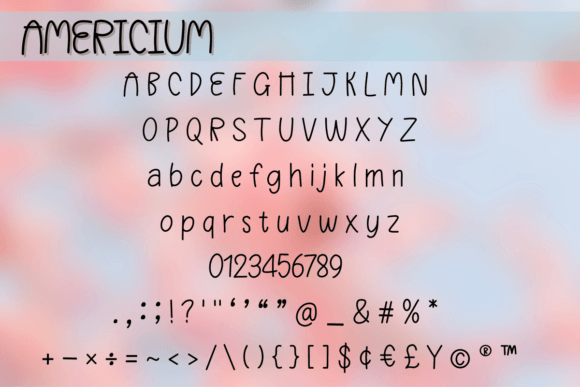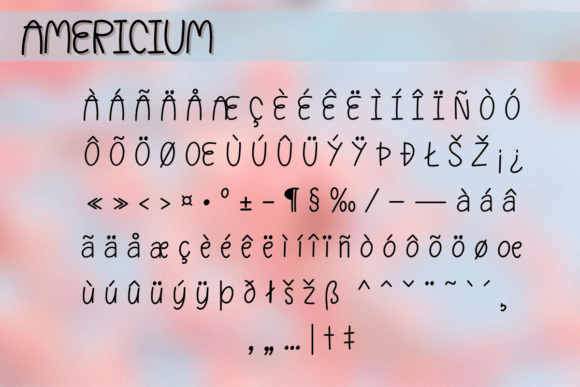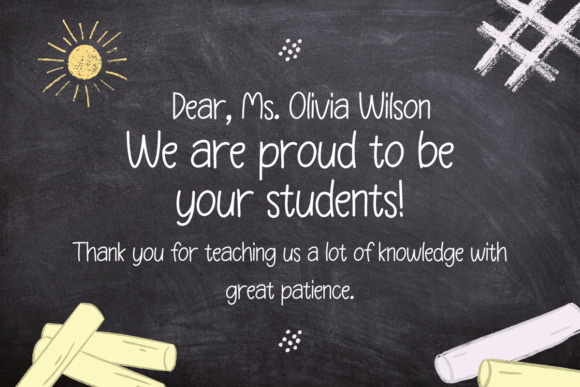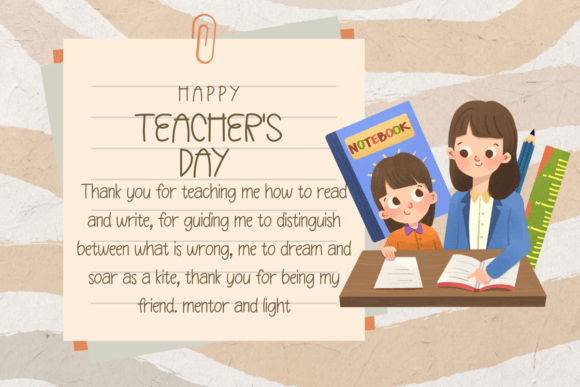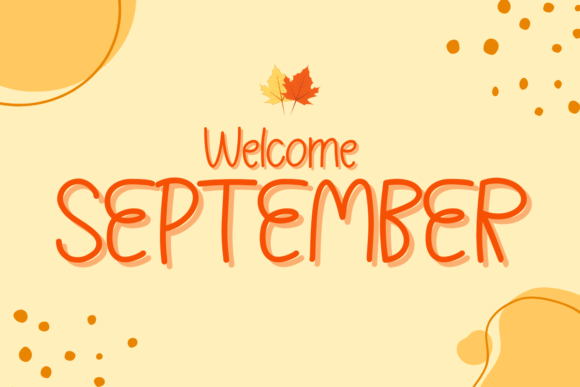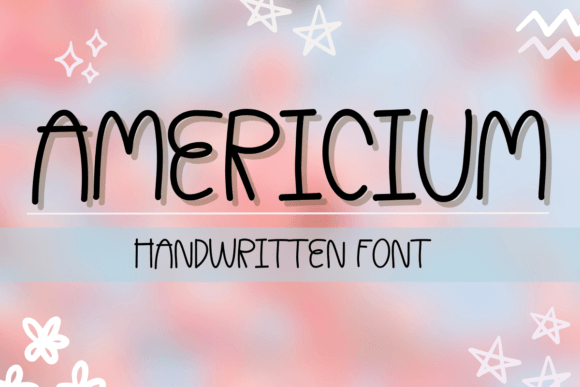
Introducing Americium Font: The Perfect Handwritten Style for Your Creative Projects
Are you a designer, crafter, or DIY enthusiast looking for a unique and versatile font to add a personal touch to your creations? Look no further than Americium Font, a beautiful handwritten font that’s perfect for a wide range of projects. In this article, we’ll explore the features and benefits of Americium Font, and show you how to make the most of this amazing resource.
What is Americium Font?
Americium Font is a carefully crafted handwritten font that’s designed to bring a touch of warmth and personality to your designs. With its flowing lines and natural feel, this font is perfect for creating handwritten-style text that’s both elegant and approachable. Whether you’re looking to add a personal touch to your notes, diaries, or greeting cards, Americium Font is the perfect choice.
What Can I Use Americium Font For?
Americium Font is incredibly versatile, and can be used for a wide range of creative projects. Here are just a few ideas to get you started:
- Notes and Journals: Use Americium Font to add a personal touch to your notes and journals. Whether you’re a student, a writer, or simply someone who loves to jot down ideas, this font is perfect for creating handwritten-style text that’s easy to read and beautiful to look at.
- Greeting Cards: Create beautiful, one-of-a-kind greeting cards for special occasions like birthdays, holidays, and weddings. Americium Font is perfect for adding a personal touch to your cards, and can be used to create everything from simple, heartfelt messages to more elaborate designs.
- Banners and Signs: Use Americium Font to create eye-catching banners and signs for parties, events, and other special occasions. This font is perfect for creating bold, eye-catching text that’s sure to grab attention.
- Social Media Posts: Add a personal touch to your social media posts with Americium Font. Whether you’re looking to create engaging captions, quotes, or simply want to add a decorative touch to your posts, this font is perfect for creating unique and eye-catching text.
- Mugs, Cards, and Shirts: Americium Font is also perfect for creating custom designs for mugs, cards, shirts, and other merchandise. Whether you’re looking to create a unique gift or simply want to add a personal touch to your own belongings, this font is the perfect choice.
Why Choose Americium Font?
So why choose Americium Font over other fonts? Here are just a few reasons why this font stands out:
- Unique and Handwritten: Americium Font is a truly unique and handwritten font that’s sure to add a personal touch to your designs. With its natural feel and flowing lines, this font is perfect for creating text that’s both elegant and approachable.
- Versatile: Americium Font is incredibly versatile, and can be used for a wide range of creative projects. Whether you’re looking to create notes, greeting cards, banners, or social media posts, this font is perfect for any project that requires a personal touch.
- Easy to Read: Despite its handwritten style, Americium Font is incredibly easy to read. This makes it perfect for creating text that’s both beautiful and functional.
Tips for Using Americium Font
Here are a few tips for getting the most out of Americium Font:
- Experiment with Sizes and Colors: Americium Font looks great in a variety of sizes and colors. Experiment with different combinations to find the one that works best for your project.
- Pair with Other Fonts: Americium Font pairs well with a variety of other fonts. Try pairing it with a bold font for a striking contrast, or with a more elegant font for a sophisticated look.
- Use for Emphasis: Americium Font is perfect for adding emphasis to your text. Use it to highlight important information, or to create eye-catching headings and titles.
Americium Font is a beautiful and versatile handwritten font that’s perfect for a wide range of creative projects. With its unique and natural feel, this font is sure to add a personal touch to your designs. Whether you’re a designer, crafter, or DIY enthusiast, Americium Font is a must-have resource that’s sure to inspire your creativity.